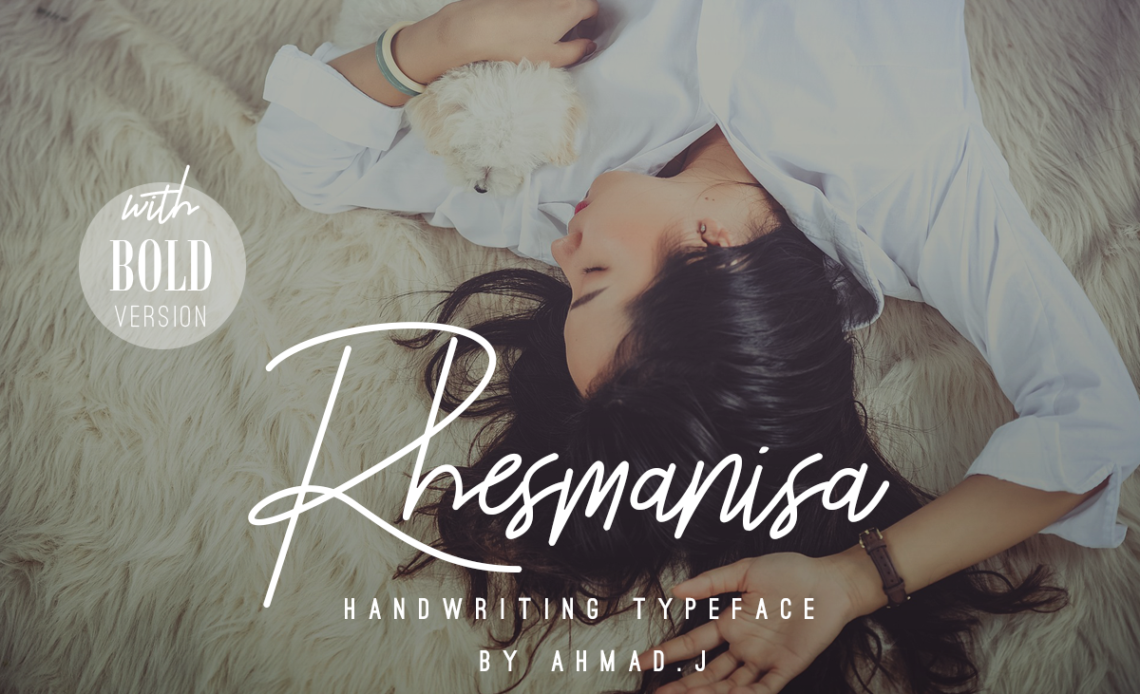
Unleash the Enchanting Appeal of Your Designs with Rhesmanisa's Handwritten Elegance
In a world where individuality reigns supreme, your creative projects yearn for a touch of distinction, a voice that resonates with your unique style. Introducing Rhesmanisa, a handcrafted script font that dances across the digital canvas with grace and sophistication. Its natural flow and modern aesthetics make it the perfect companion for a myriad of projects, transforming your words into captivating works of art.
This exquisite font family, brought to life by the talented artisans at Dharmas Studio, comprises two captivating styles – Regular and Bold. Each glyph has been meticulously crafted to exude both elegance and modernity, ensuring that your designs leave a lasting impression.
Adorn your photographs with Rhesmanisa's allure, allowing your images to narrate tales of beauty and charm. Create watermarks that subtly proclaim your ownership, yet seamlessly blend with the underlying content. Engage your audience on social media platforms with captivating posts that dance with visual delight. Craft advertisements that capture attention and ignite desire, leaving an indelible mark on the minds of your potential customers.
Rhesmanisa's versatility extends far beyond these conventional applications. Unleash your creativity and explore the endless possibilities it presents. From wedding invitations that exude timeless romance to branding projects that demand a touch of sophistication, Rhesmanisa effortlessly adapts to your vision, adding a dash of elegance wherever it goes.
This font is more than just a collection of characters; it's an extension of your creative self, a tool that empowers you to communicate your ideas with artistry and flair. Embrace Rhesmanisa and watch as your designs evolve into masterpieces that captivate and inspire.